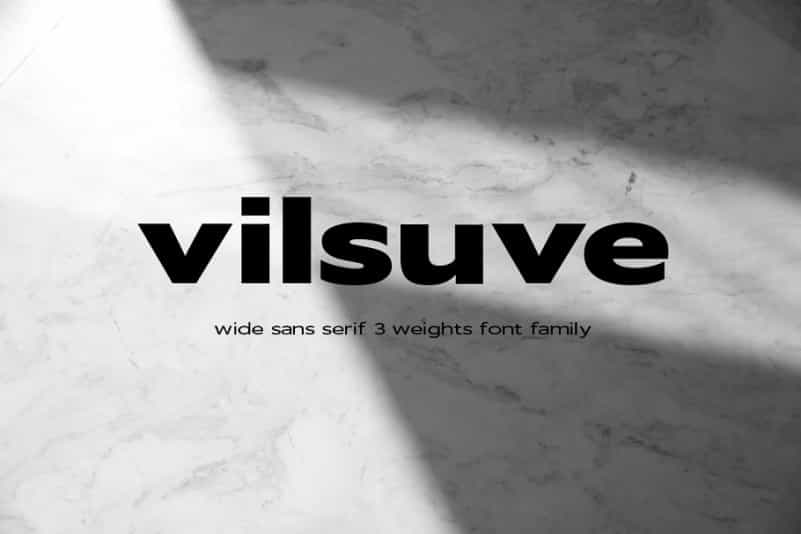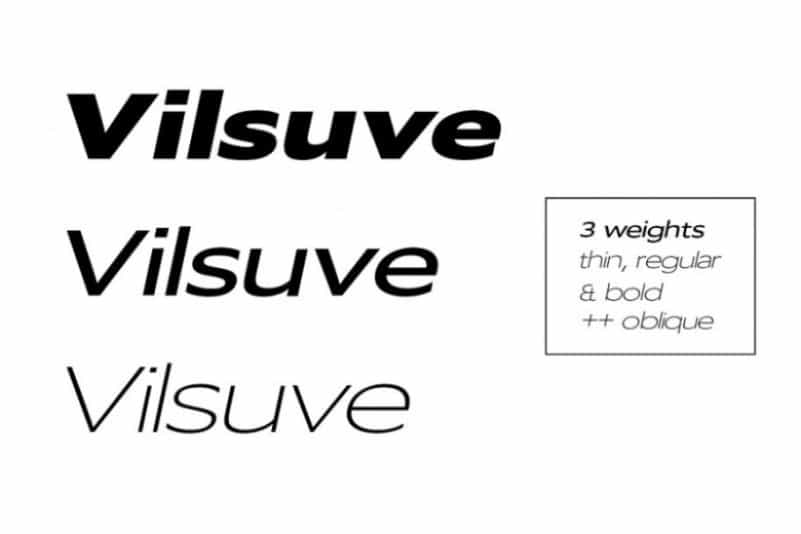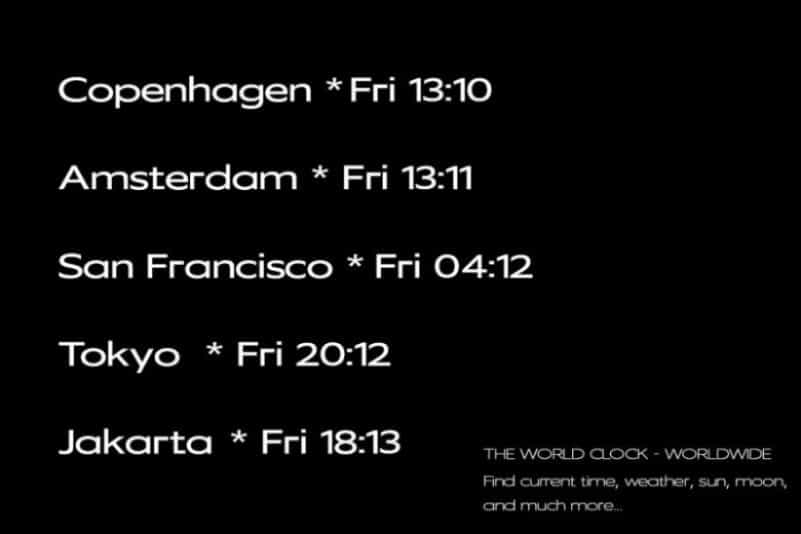
Vilsuve Font is a wide sans serif, designed to provide a large amount of space for text or graphics. The font is contemporary, and has a lot of comic sans and grotesk feel. Ideal for both print and web media. The font is created and published by the Typo Bureau Studio. The capitals are bold and the straights are clear and angular which makes them versatile fonts. Shaped with edges and splashes of vitality.